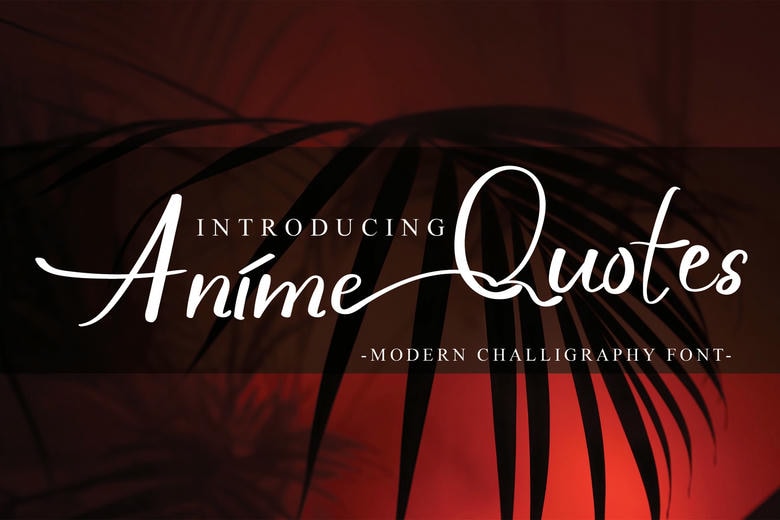
Anime Quotes Font
Anime Quotes is a romantic and sweet calligraphy typeface with characters that dance along the baseline. It will add a luxury spark to any design project that you wish to create!
Anime Quotes Calligraphy Script Font